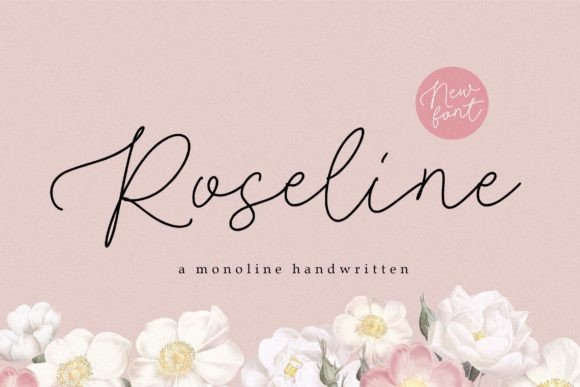
Unleash the Enchanting Beauty of Roseline Font: A Timeless Masterpiece for Your Creative Endeavors
Embark on a typographic journey with Roseline, a monoline handwritten font that exudes elegance, grace, and a touch of whimsy. Its clean and refined lines, reminiscent of a skilled calligrapher's hand, will add a touch of sophistication to your designs, leaving an unforgettable impression.
Dive into a World of Creative Possibilities
With Roseline, the possibilities are endless. Whether you're crafting logos, branding materials, wedding invitations, or adding a personal touch to your social media posts, this font will elevate your designs to new heights. Its versatile nature makes it suitable for various projects, allowing you to explore your creativity and leave a lasting impact.
A Symphony of Harmony in Every Stroke
Experience the beauty of Roseline's smooth, effortless lines that flow seamlessly across your designs, creating a sense of harmony and balance. Each letterform is meticulously crafted to capture the essence of elegance, ensuring that your words resonate with a timeless appeal.
Timeless Appeal Meets Modern Elegance
Roseline is a font that transcends time, embodying both classic sophistication and contemporary charm. Its understated simplicity allows it to seamlessly blend into any design aesthetic, while its delicate details add a touch of elegance that sets it apart from the ordinary.
Embark on an Artistic Adventure with Roseline
Step into a world of artistic expression with Roseline, your trusted companion on your creative journey. Whether you're a seasoned designer or just starting to explore the realm of typography, this font will empower you to bring your vision to life with ease and grace.